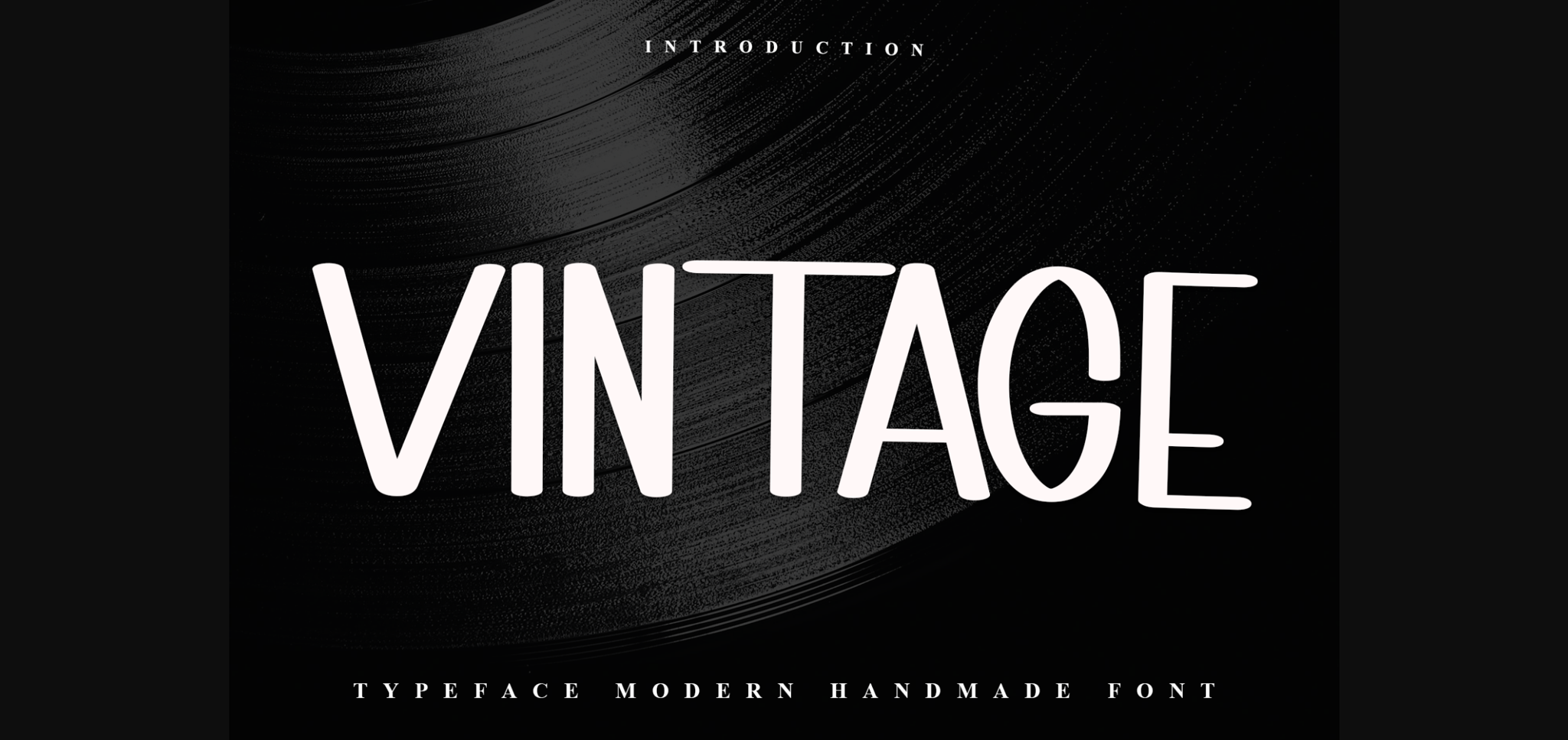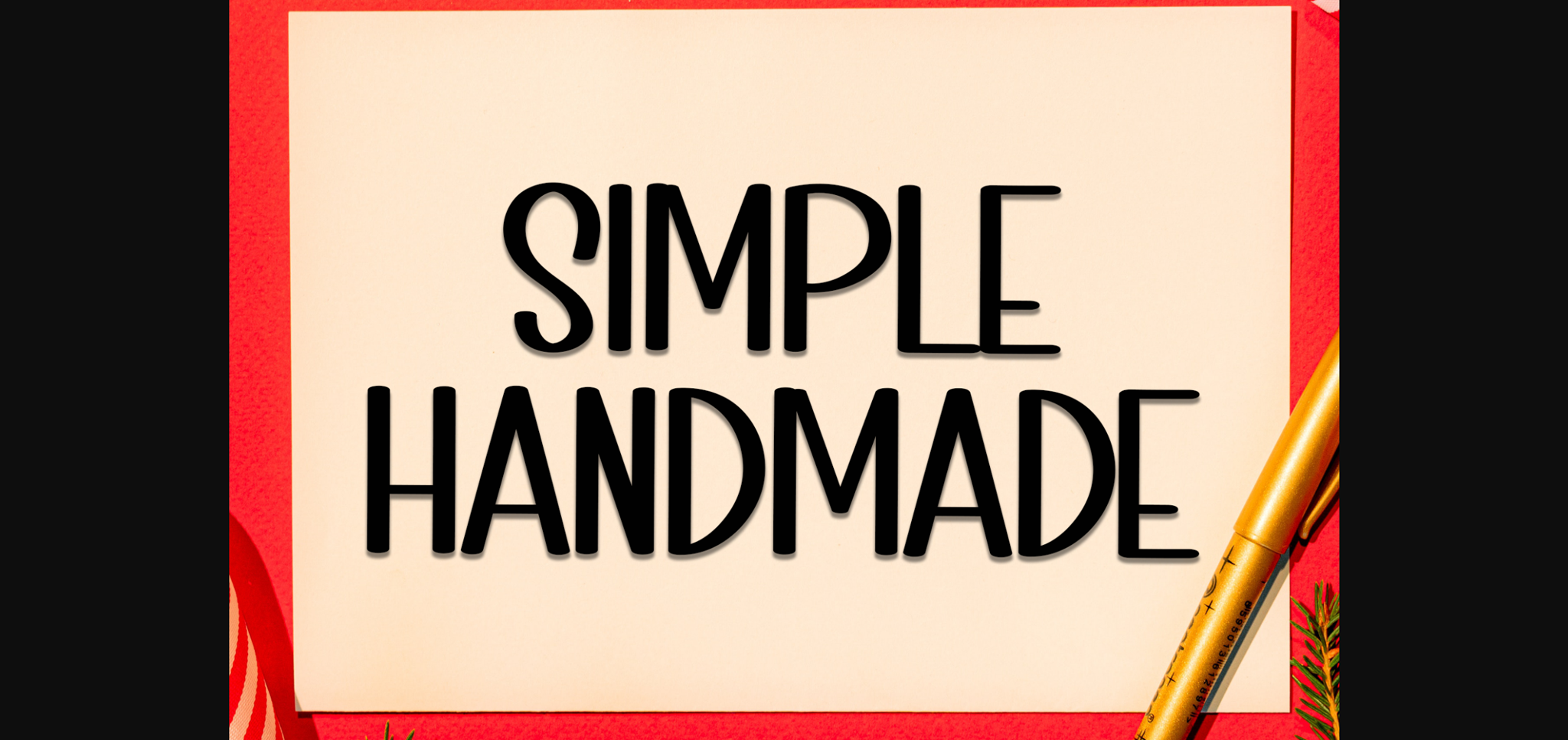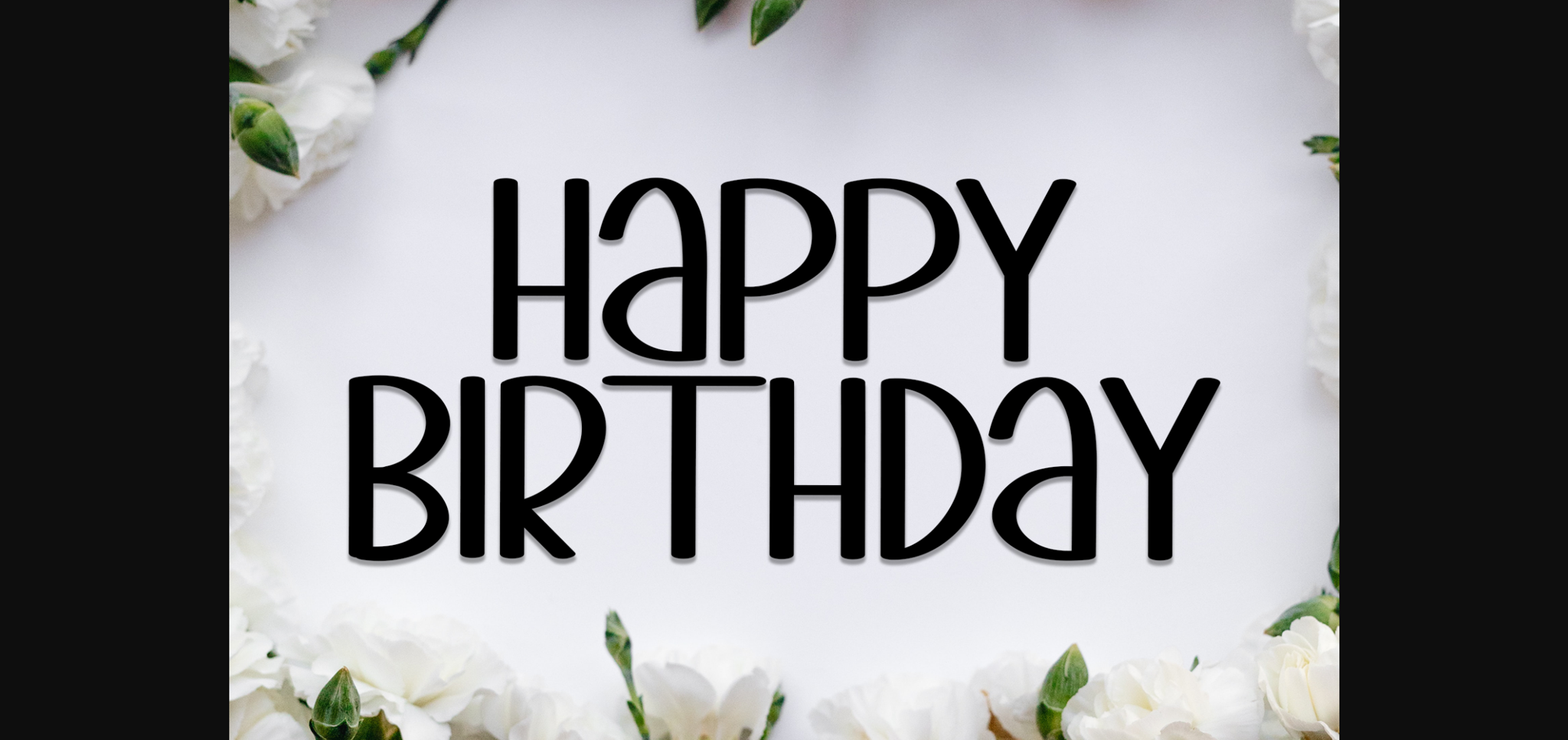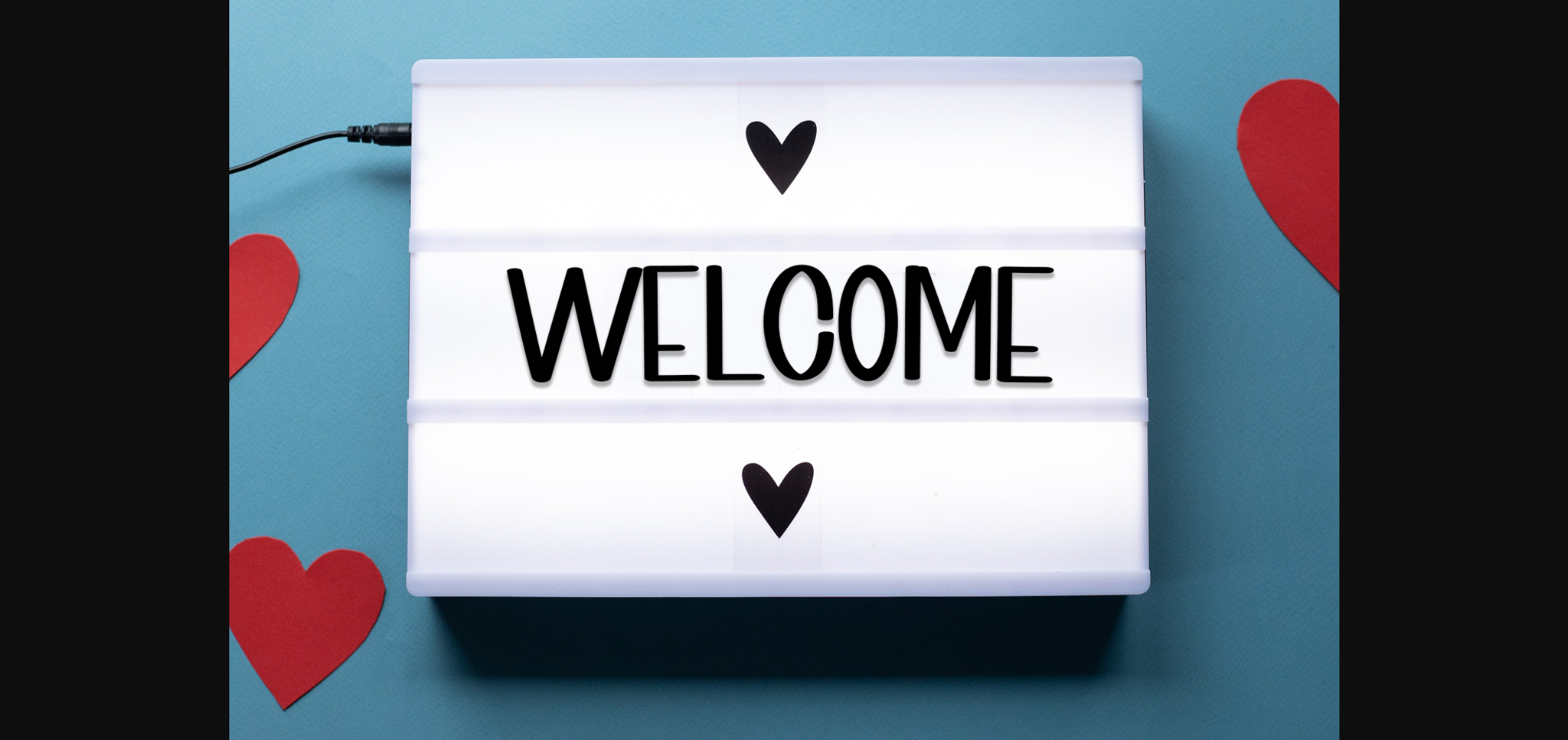
About Vintage Font
Vintage is a festive and happy typeface that captures the spirit of the holiday season. With its decorative elements and unique flair, it adds a touch of charm to your designs. Perfect for greeting cards, gift labels, and holiday-themed projects, this font brings a cheerful and nostalgic atmosphere to your words.